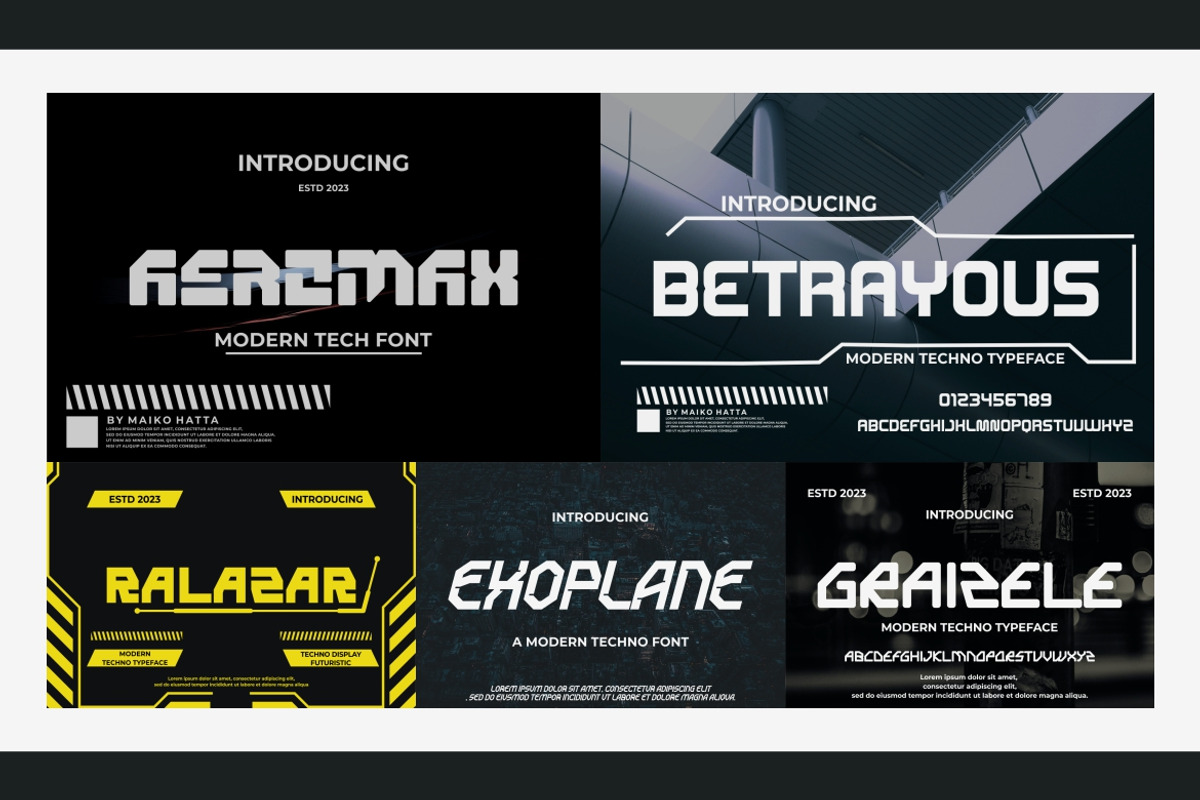
Modern Techno Font Bundle
Modern Techno Font Bundle - Modern Font is a bold and authentic display font. The font is suitable for any branding project like logo, template design, esport, and many more. outstanding in a wide range of contexts.